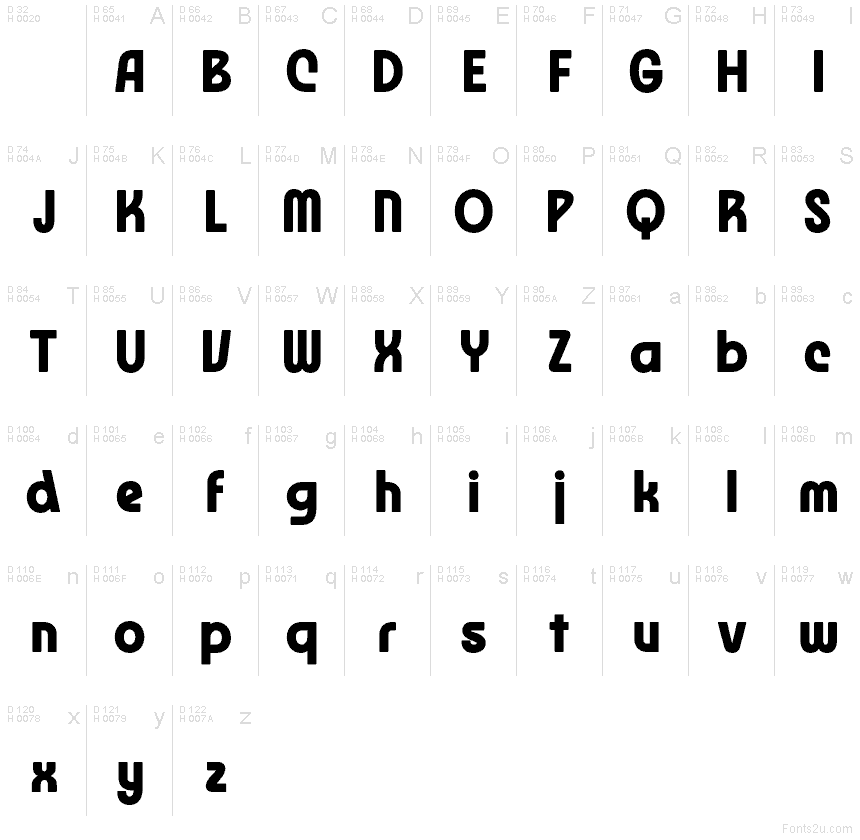
CS Robust Regular Demo
CS Robust font by Craft Supply Co. is a bold display typeface with retro influences. It features clean lines and geometric elements, capturing a strong presence that balances modernity with vintage charm.